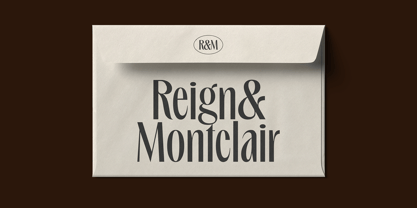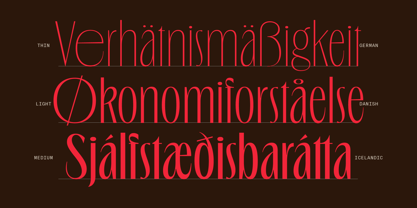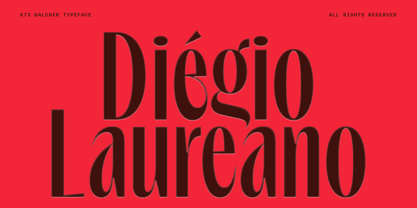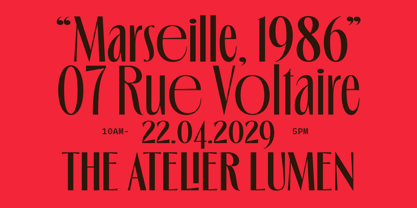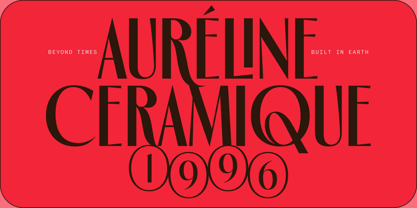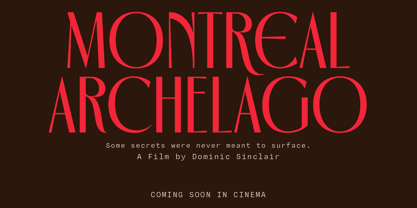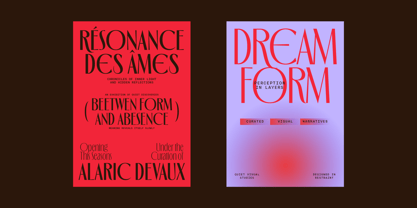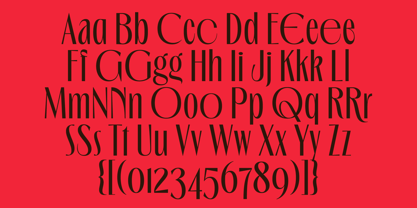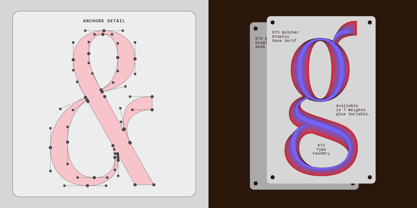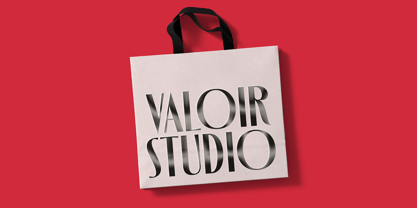
K73 Balcher
von K73 Type Foundry
Die Schriftfamilie K73 Balcher wurde von Bagas Ferdiansah entworfen und von K73 Type Foundry veröffentlicht. K73 Balcher enthält 7 Stile und Familienpaketoptionen. Mehr über diese Familie
K73 Balcher is a high-contrast sans serif typeface inspired by the elegance and geometry of the Art Deco era. Designed primarily for display use, it is available in 7 weights from Thin to Bold, including a variable version that allows precise control across the weight spectrum. The sharp contrast and sculptural rhythm give it a strong yet refined presence. Influenced by architectural lettering and luxury signage of the 1920s and 1930s, K73 Balcher translates classic Deco sophistication into a contemporary typographic system. Its open counterforms, controlled proportions, and disciplined construction make it well suited for headlines, editorial titles, branding, packaging, and visual identities that require clarity with character. Each weight has been carefully refined to maintain consistency and balance throughout the family, preserving its decorative foundation while ensuring a clean and relevant performance for modern design contexts.
Designer: Bagas Ferdiansah
Foundry: K73 Type Foundry